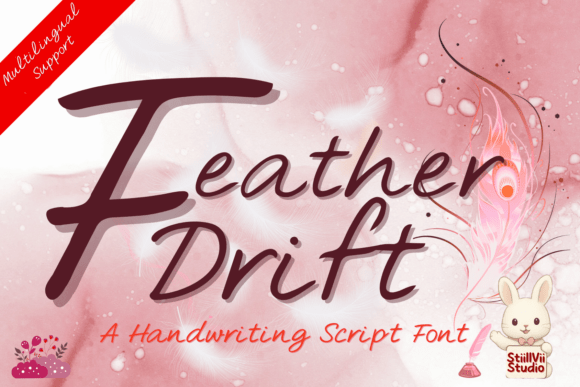
Discover the Effortless Elegance of Feather Drift Font
Have you ever been stuck on a design project, searching for the perfect font to capture the essence of your vision? Maybe you’ve scrolled through font libraries, only to feel like nothing quite fits the bill. That’s where the magic of Feather Drift Font comes in – a beautiful handwriting script font that will transport your words to a whimsical world of romance and sophistication.
With its fluid strokes and natural rhythm, Feather Drift Font is the perfect choice for designers who crave a personal yet elegant touch. Whether you’re creating wedding invitations, save-the-date cards, or luxury branding, this font is sure to elevate your designs to new heights. As a designer, you’ll appreciate the versatility and elegance that Feather Drift Font brings to your projects.
Feather Drift Font Key Features
- Font Family: Feather Drift Font
- Character Set: Supports Latin, Cyrillic, Greek, and Extended Latin character sets
- Unique Characteristics: Hand-drawn, whimsical, and elegant design with a soft, feathery texture, making it perfect for creative and artistic projects
Feather Drift Font Review
Overall, I’m quite impressed with the Feather Drift Font. It’s a beautiful script font that captures the essence of a gentle breeze ✨. The flowing curves and subtle variations in letterform make it perfect for adding a touch of elegance to any design project.
- The font’s dynamic feel is perfect for creating a sense of movement and flow ✨.
- The variations in letterform add a unique touch to the font, making it stand out from more traditional script fonts ✨.
- The font is highly legible, even at small font sizes ✨.
- The font may be too cursive for some designs, particularly those that require a more formal tone ⚠️.
- The font’s flow can sometimes make it difficult to read in certain contexts, particularly in short sentences or phrases ⚠️.
Overall, I’d highly recommend the Feather Drift Font for designers looking to add a touch of elegance and sophistication to their projects. While it may have some limitations, the font’s unique feel and high legibility make it a great choice for a wide range of design applications.
Getting the Most Out of Feather Drift Font
To get the most out of Feather Drift Font, use it sparingly in titles and headings to create a visually appealing contrast with other fonts. Pair it with clean and simple fonts for body text to maintain readability.
Feather Drift Font is ideal for:
• Creative projects, such as brochures, posters, and flyers
• Branding and marketing materials, such as logos and business cards
• Digital designs, such as website headers and social media graphics
Alternatives to Feather Drift Font
Great Vibes is a modern, elegant script font that is perfect for creating a relaxed and friendly atmosphere. It features smooth curves and dynamic lines, making it suitable for use in branding, invitations, and advertising materials. Compared to Feather Drift Font, Great Vibes has a more playful and carefree feel, while Feather Drift Font is more delicate and whimsical.
Alex Brush is a beautiful, handwritten font that is ideal for creating a sense of sophistication and elegance. It features a mix of cursive and calligraphic elements, making it suitable for use in high-end branding, luxury packaging, and fine art projects. Compared to Feather Drift Font, Alex Brush has a more refined and polished look, while Feather Drift Font is more casual and effortless.
Carolyna Pro is a elegant, modern script font that is perfect for creating a sense of luxury and sophistication. It features a mix of cursive and calligraphic elements, making it suitable for use in high-end branding, fashion, and beauty projects. Compared to Feather Drift Font, Carolyna Pro has a more refined and polished look, while Feather Drift Font is more delicate and whimsical.